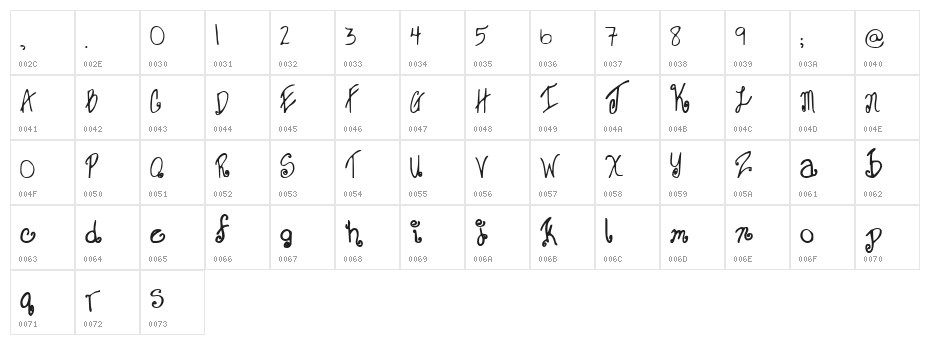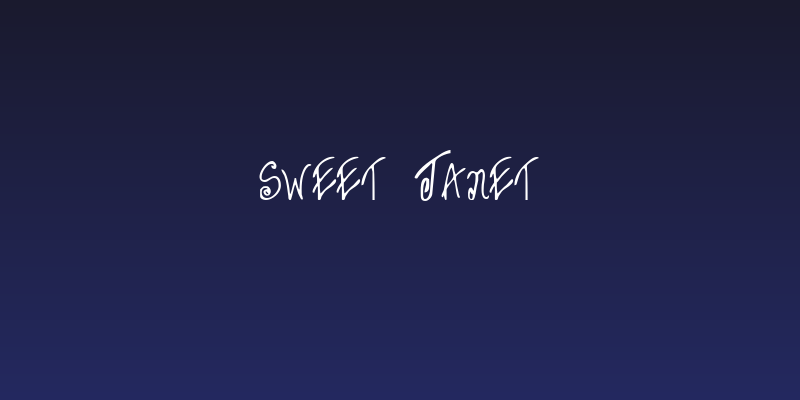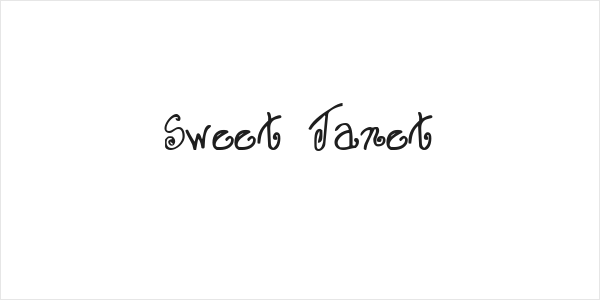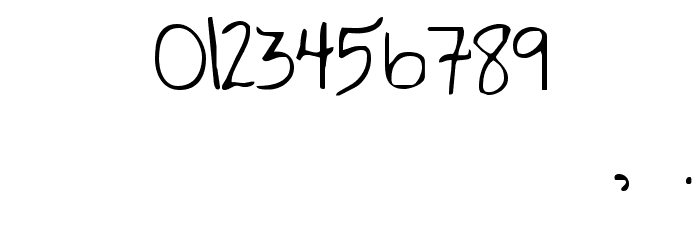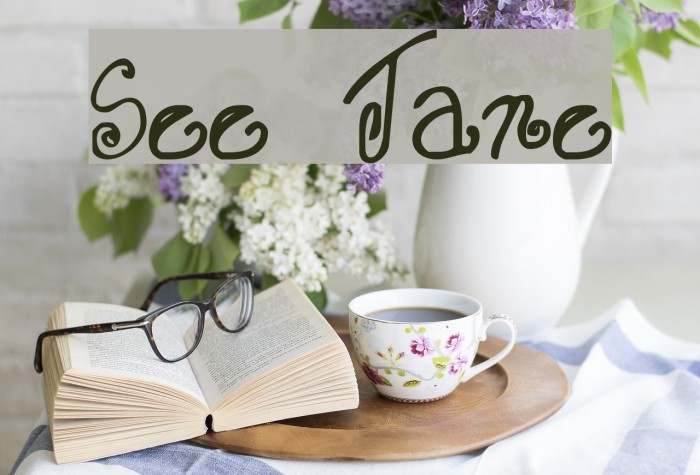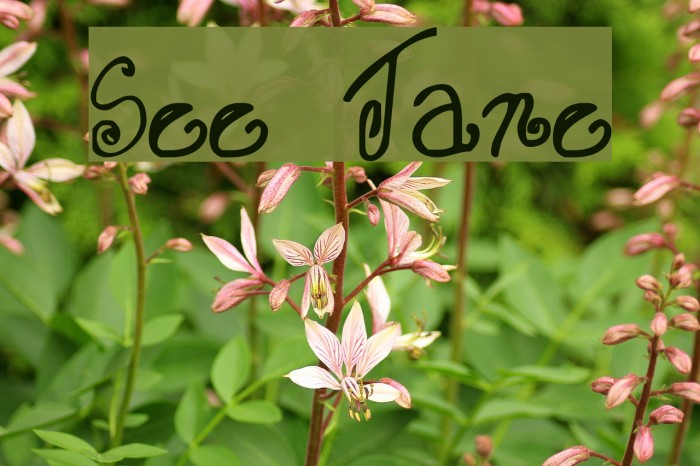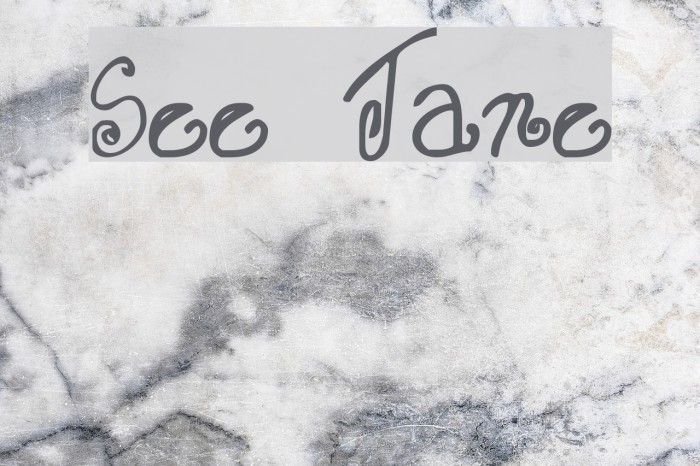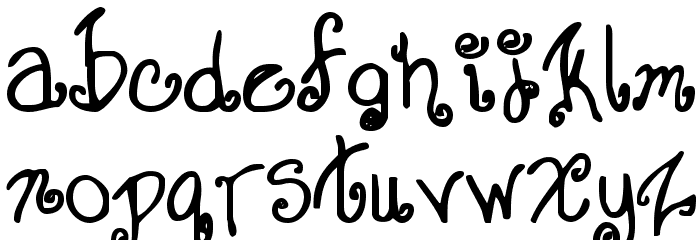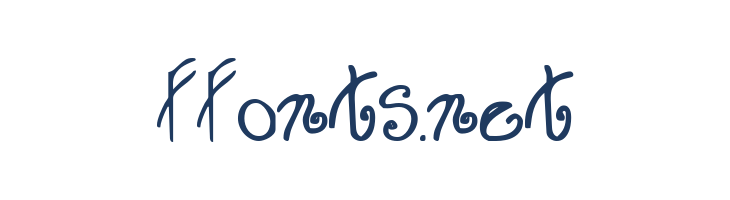
Sweet Janet Font
| Категория | Round |
| Общий стиль | Playful and Artistic |
| Область применения | Headlines, Logos, Creative Projects |
| Рекомендуемые проекты | Ideal for children's books, greeting cards, playful branding, and artistic posters. |